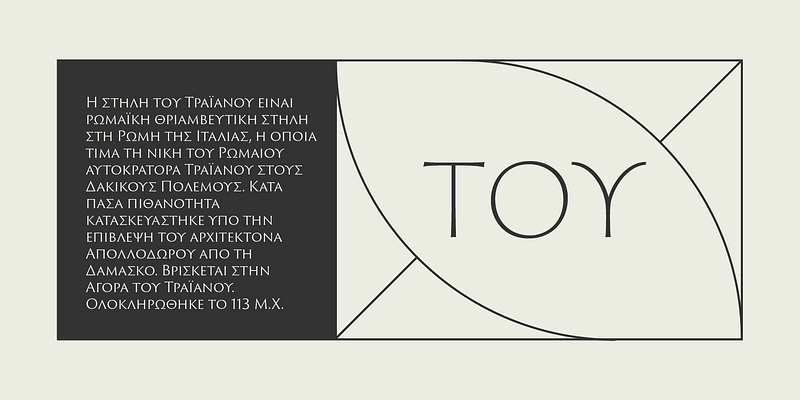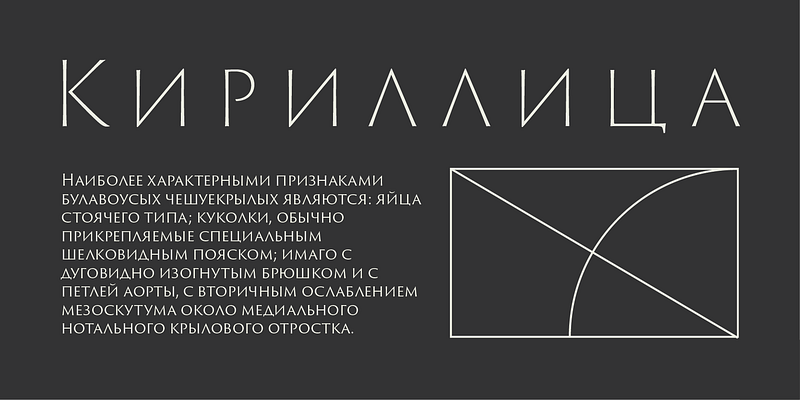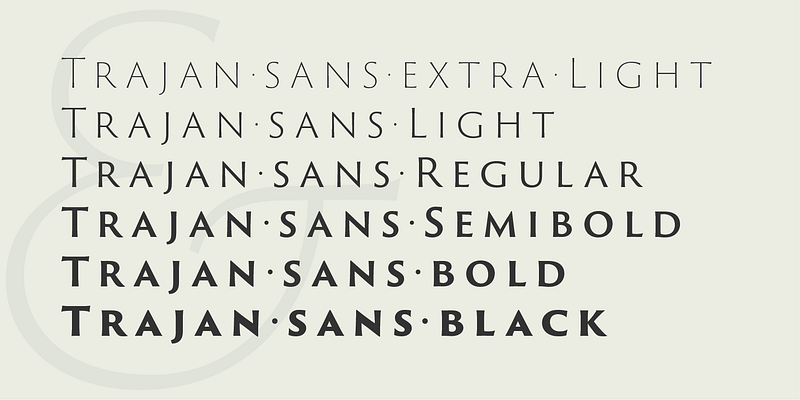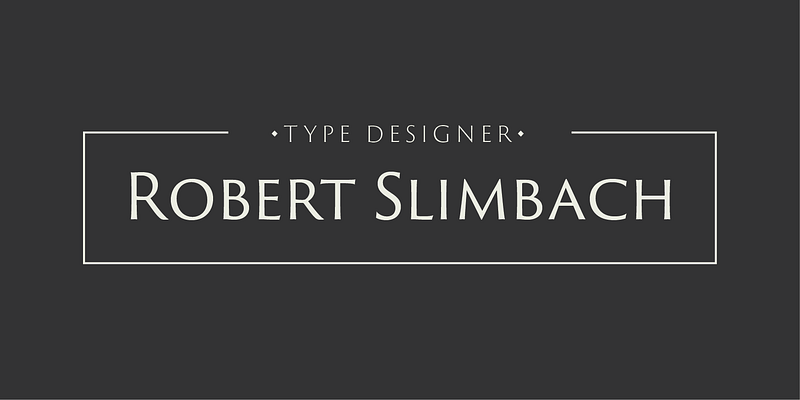
Trajan Sans is a sans serif companion to Carol Twombly’s popular Trajan typeface, first released in 1989. It is a fresh interpretation by designer Robert Slimbach, a complement to his extension of the Trajan Pro family. Like Trajan Pro, Trajan Sans is an all-caps typeface (it has no lowercase), derived from the famous inscription at the base of Trajan’s column in Rome. Slimbach set out to create “a distinctly modern sans-serif display type family that retains the elegance and versatility of the original Trajan family.”